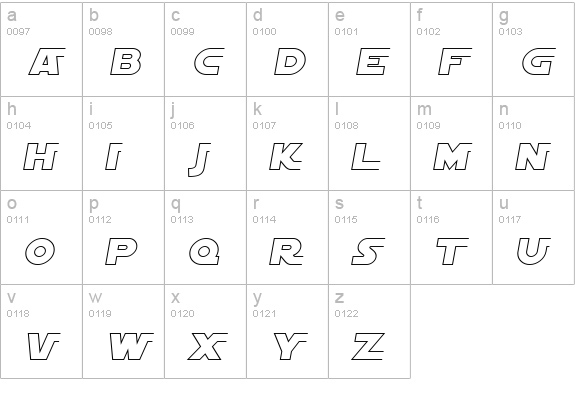
SF Distant Galaxy AltOutline Italic Font Details
SF Distant Galaxy AltOutline Italic is a distinctive, italic variant in the SF typeface family \xE2\x80\x94 well suited to design and typography projects.
SF Distant Galaxy AltOutline Italic is a stunning and futuristic typeface that is sure to transport your designs to another dimension. With its sleek and captivating letterforms, this font exudes a sense of adventure and wonder. The AltOutline variation of SF Distant Galaxy Italic adds an extra layer of depth and sophistication to your designs. The italicized slant of the characters creates a dynamic and energetic feel, perfect for capturing the essence of a distant galaxy. Designed with meticulous attention to detail, SF Distant Galaxy AltOutline Italic offers a unique combination of bold outlines and intricate curves. The sharp edges and smooth curves create a mesmerizing contrast that is both captivating and visually appealing. Whether you're designing a science fiction book cover, a futuristic poster, or a space-themed website, SF Distant Galaxy AltOutline Italic will make your designs stand out from the crowd. Its versatility allows it to be used in a variety of settings, from digital displays to print materials. One of the best features of SF Distant Galaxy AltOutline Italic is that it is freely available to download at FontsMarket.com. This means that you can easily add this font to your collection without any cost. Its availability for free makes it accessible to designers of all levels, allowing them to create captivating and professional designs without breaking the bank. So, if you're looking for a font that will take your designs to new heights and capture the essence of a distant galaxy, look no further than SF Distant Galaxy AltOutline Italic. Download it for free at FontsMarket.com and start creating stunning designs that are out of this world.